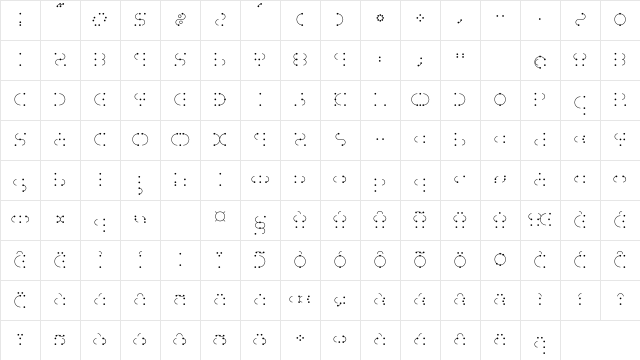
Complete TG Piercing Code glyph index. Displaying only characters natively supported by TG Piercing Code font.
TG Piercing uses fixed-width spacing throughout, giving it the structured, systematic character associated with coding environments and technical documentation.